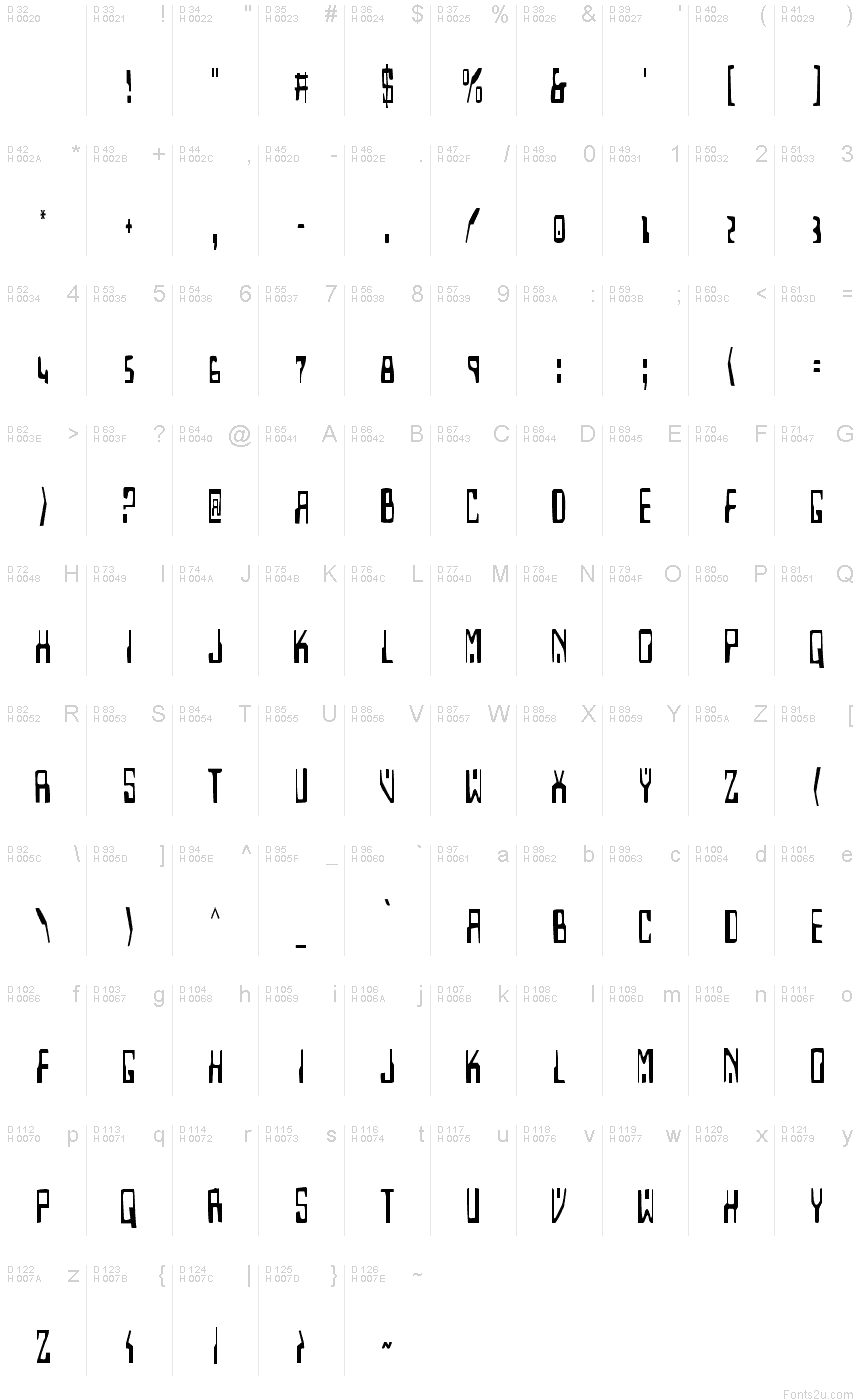
Homemade Robot Condensed
Homemade Robot Condensed font by Iconian Fonts is a free condensed techno comic typeface. Its tall, tightly packed letters look like they were carved out of metal by a slightly clumsy robot-blocky shapes, irregular cuts, and a gritty, inked edge that keeps it from feeling too clean or clinical. The result is a playful, lo‑fi sci‑fi vibe that feels part arcade cabinet, part homemade zine title.
Using Homemade Robot Condensed, bold words slam together into a solid, mechanical stripe of text that grabs attention instantly. This free font shines on indie game logos, sci‑fi posters, comic covers, hacker‑themed flyers, sticker packs, and edgy YouTube thumbnails. Keep it large for maximum impact, and pair it with a simple geometric sans for body copy so its quirky, robotic personality stays in the spotlight.